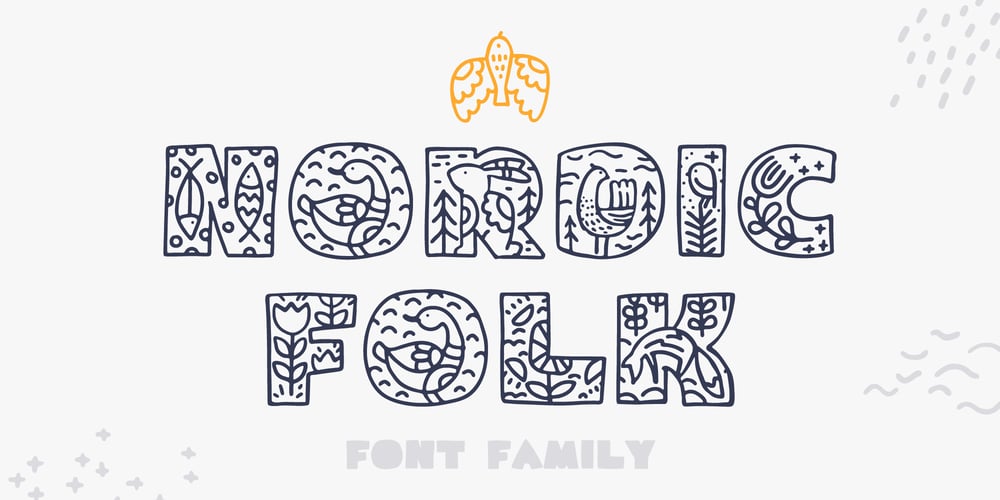
Nordic Folk Font Family was designed by Roman Korolev and published by Kaer. Nordic Folk contains 3 styles and family package options. Hey there! I’m happy to introduce to you my new ethnic-based font. Hurray! It was long and hard work because every glyph is unique. I sketched each letter of the font. Each letter is uniquely designed and has nordic folk art in the background.What you will get: Filled and Regular styles Icons and patterns font Uppercase (lowercase glyphs are same) Numbers and symbols Multilingual support Please feel free to request to add characters you need: kaer.pro@gmail.com